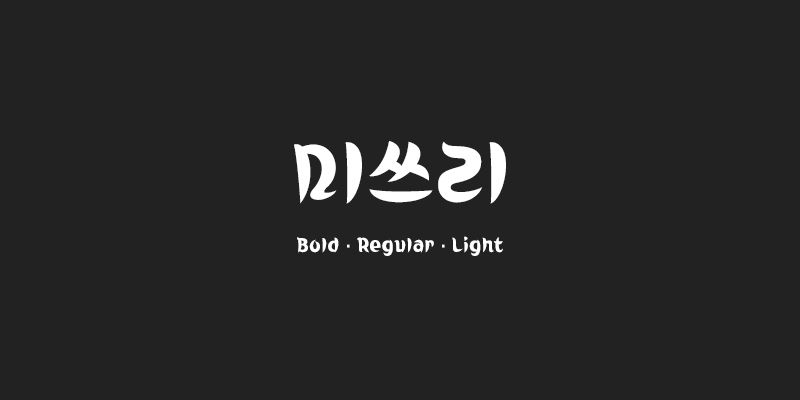
210 Misslee Font Free Download is a charming, handwritten Korean typeface that blends a casual, friendly tone with modern simplicity. Its name, “Misslee”, evokes the image of a personal note or letter—stylish yet approachable—making this font ideal for lifestyle branding, journaling apps, stationery, blogs, social media content, and heartfelt design projects.
210 Misslee Font Free Download features playful, slightly slanted Hangul characters with subtle irregularities that mimic natural handwriting. The Latin support is clean and harmoniously styled, making it perfect for bilingual compositions. It strikes a beautiful balance between warmth and legibility, making it equally useful in short text blocks and standout titles.
This font excels in designs that need to feel personal, expressive, and creative—great for both digital and print formats where storytelling and personality matter.
Sweet, stylish, and full of character—210 Misslee Font gives your typography a fresh, handwritten soul with a modern, youthful charm.